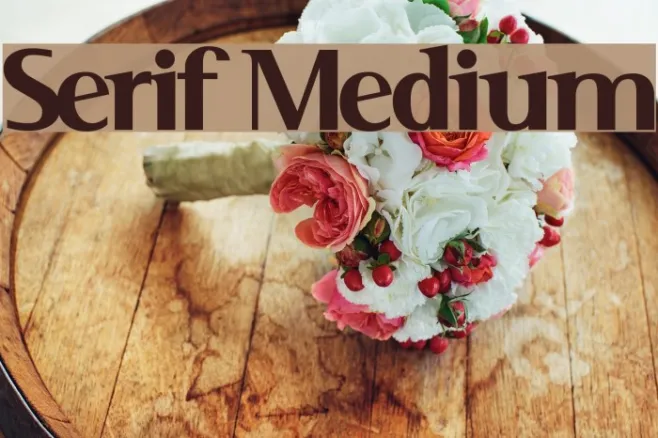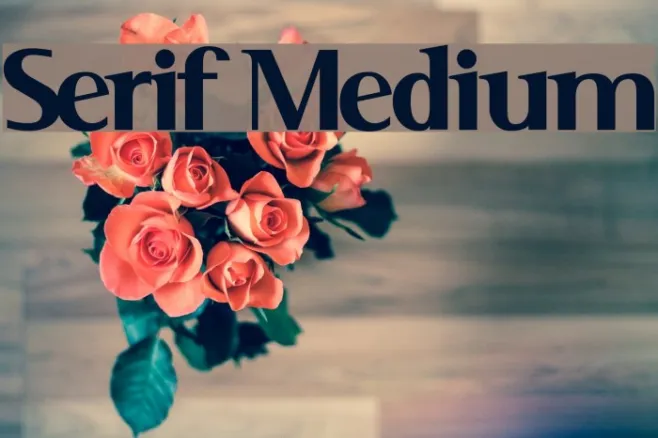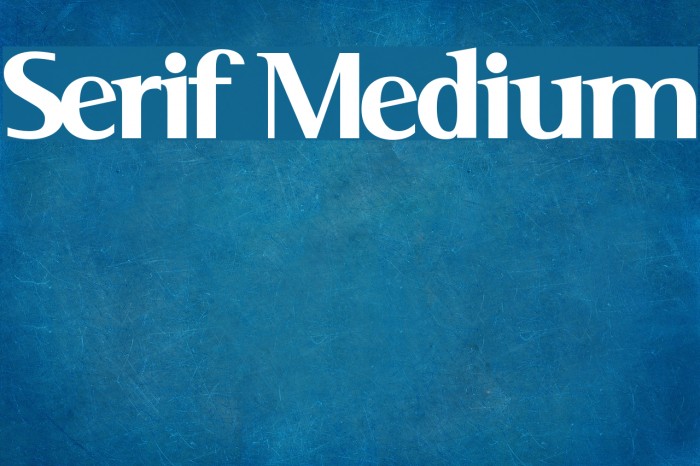
Serif Medium Font
Serif Medium Description
This typeface exhibits a classic serif style with medium weight, characterized by its elegant and refined appearance. The uppercase letters are bold and commanding, while the lowercase letters maintain a balanced and harmonious flow. The numerals are clear and distinct, ensuring readability. The special characters are well-integrated, adding versatility to the font. The overall design is sophisticated, making it suitable for a variety of formal and professional applications. The serifs are pronounced, providing a traditional feel, yet the overall structure remains modern and clean.
| Overall Style | Classic |
| Use Case | Headlines, Body text, Logos |
| Proposed Projects | Ideal for editorial design, book covers, formal invitations, and branding materials. |